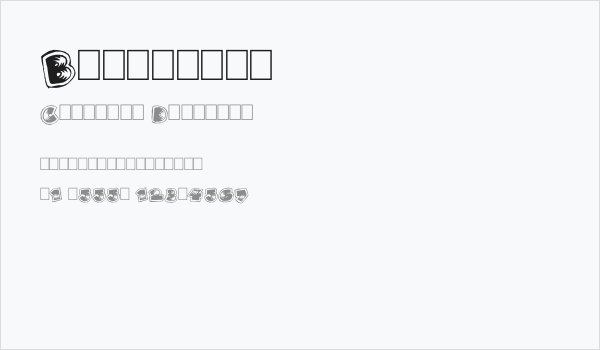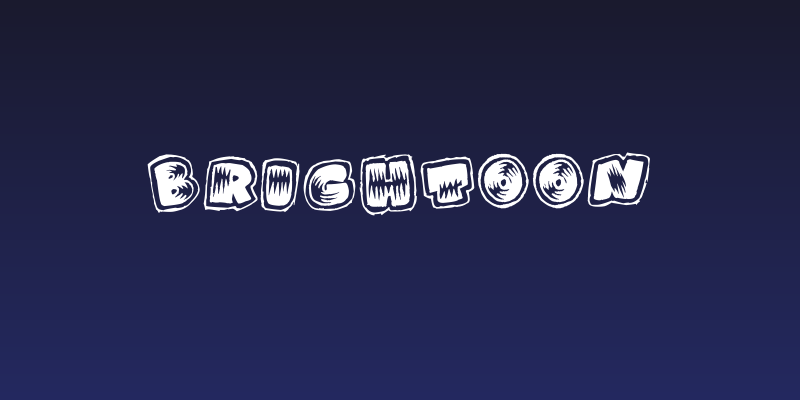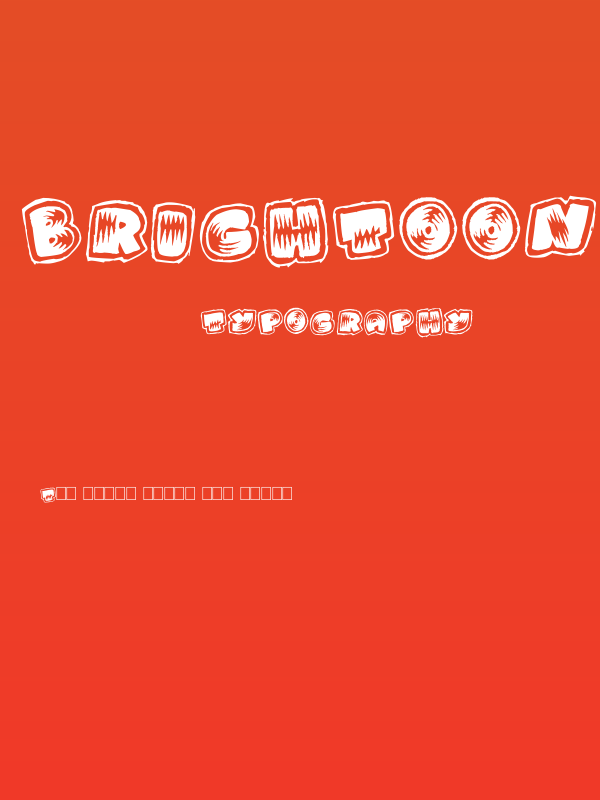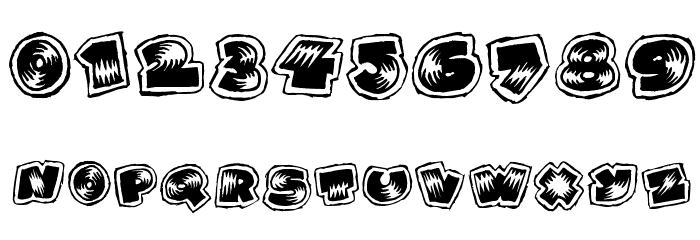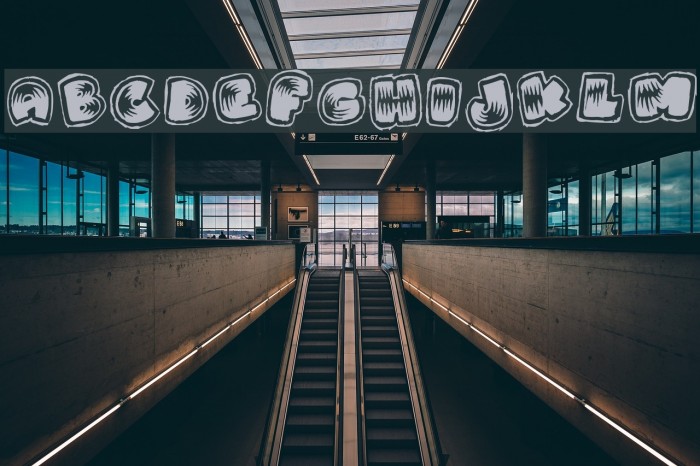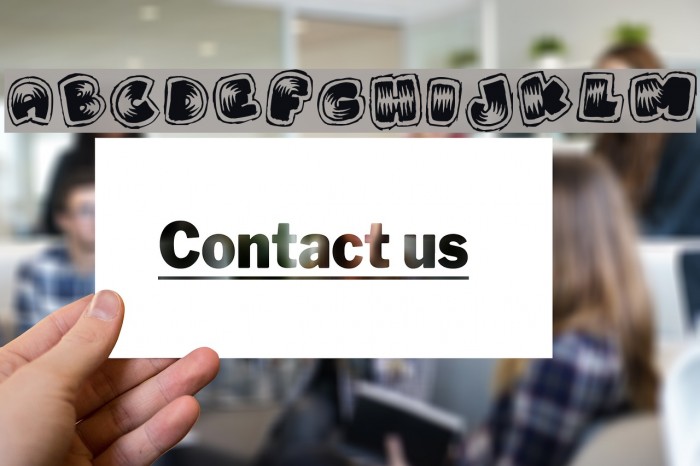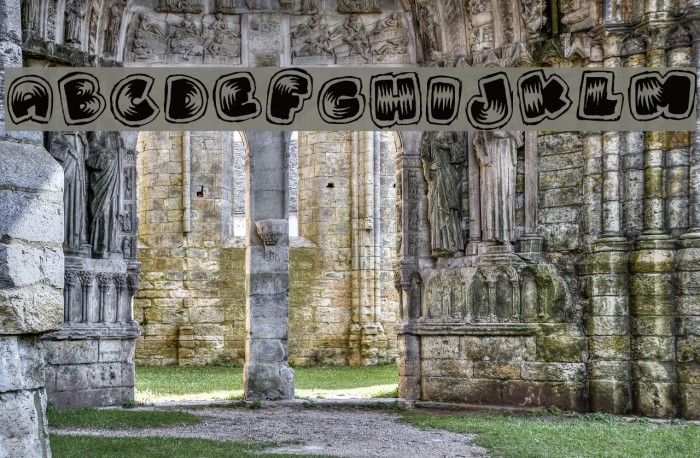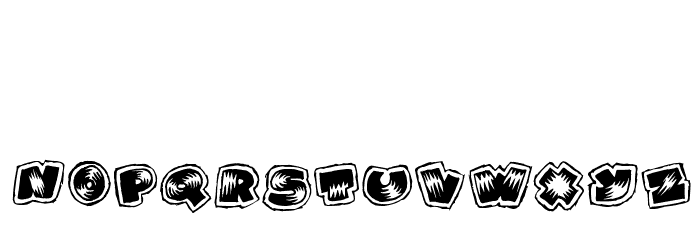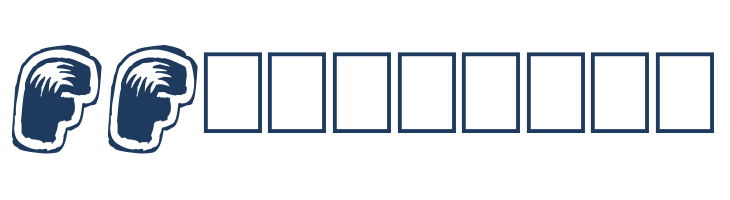
Brightoon Font
Brightoon Description
This playful and bold font features a cartoonish, hand-drawn style with thick, exaggerated strokes and a dynamic, energetic feel. Each character is outlined with a bold black line, giving it a distinct and eye-catching appearance. The interior of the letters is filled with a textured pattern that adds depth and movement, reminiscent of comic book art. The font maintains a consistent, whimsical aesthetic across uppercase, lowercase, numbers, and special characters, making it ideal for projects that require a fun and lively touch.
| Overall Style | Playful, Cartoonish |
| Proposed Projects | Perfect for comic books, children's books, playful branding, and eye-catching posters. |